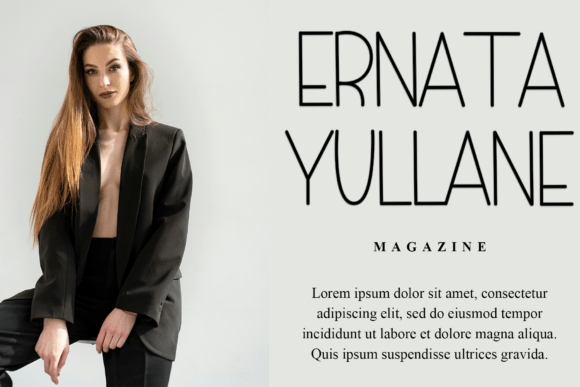
Minimalist Homemade Font
Minimalist Homemade is a tall, thin display font with a clean and simple design. It has a modern, understated look, perfect for stylish headlines and easy-to-read text.